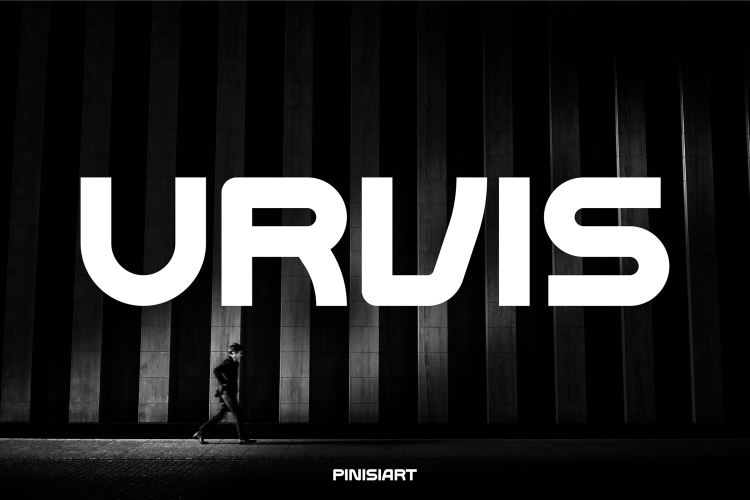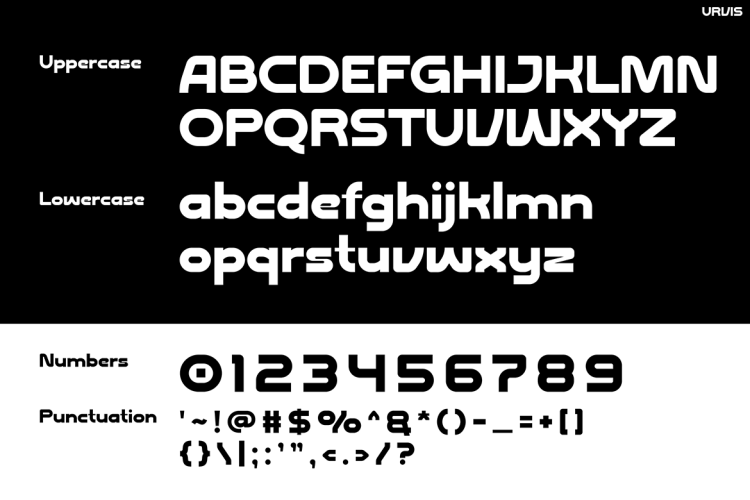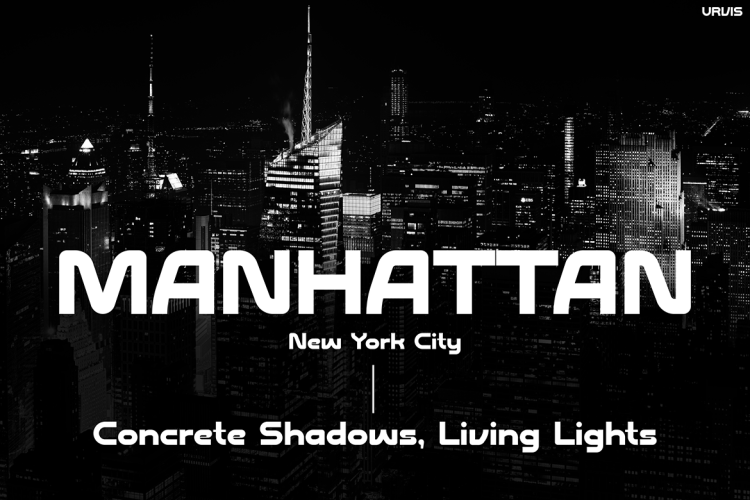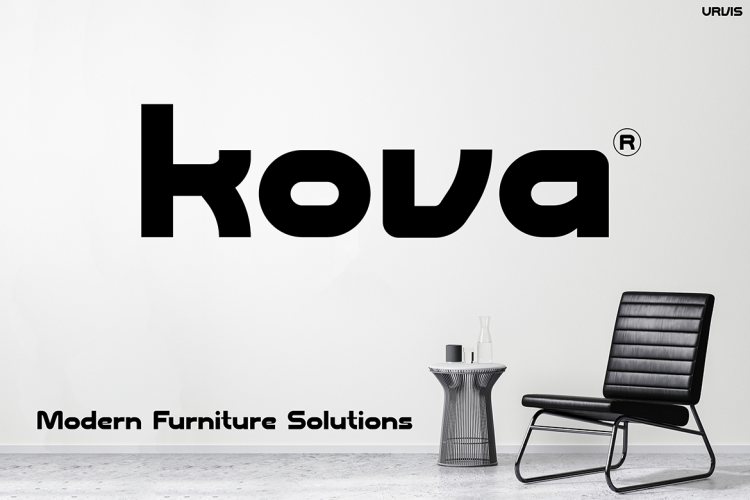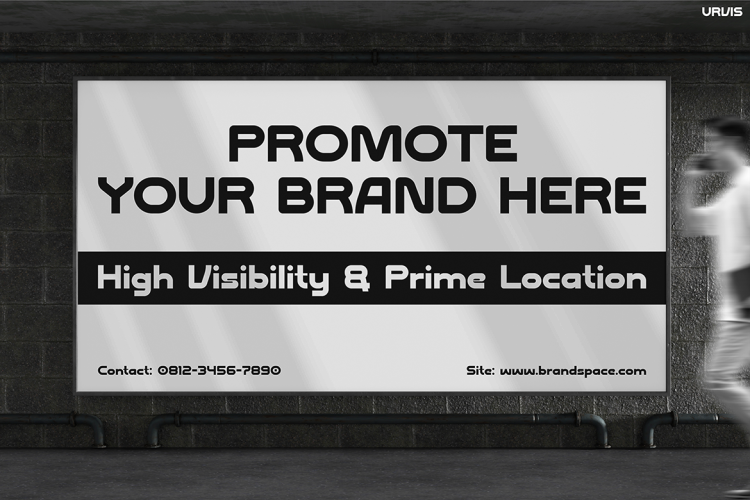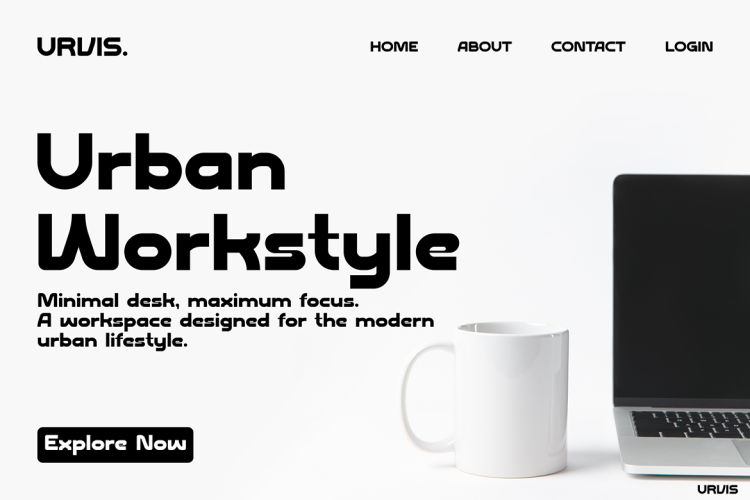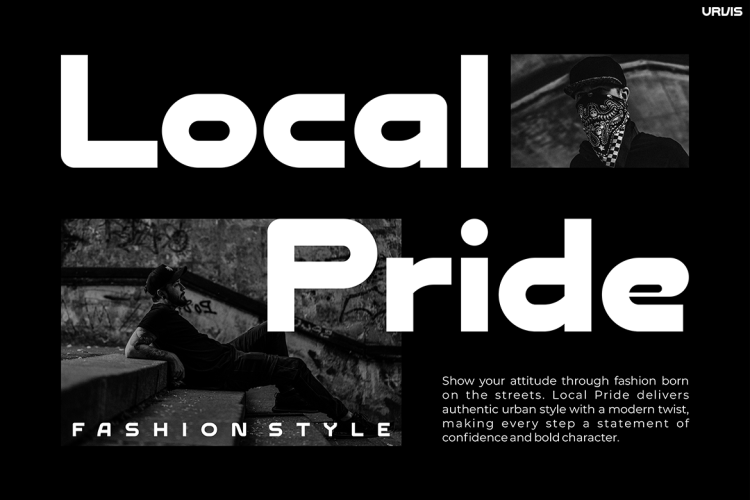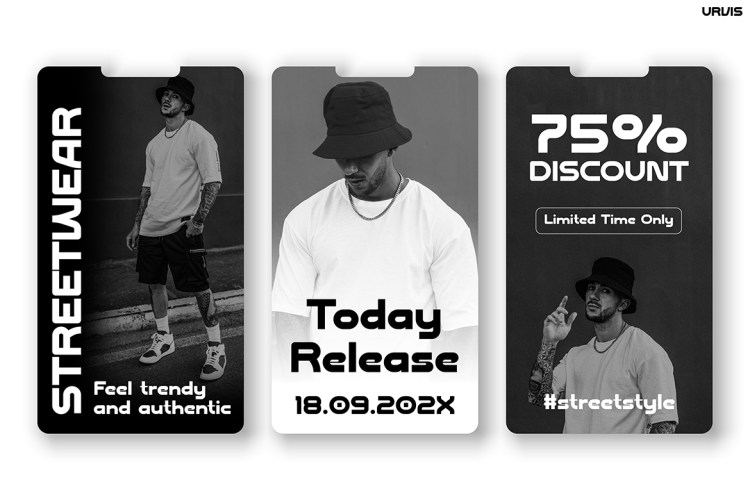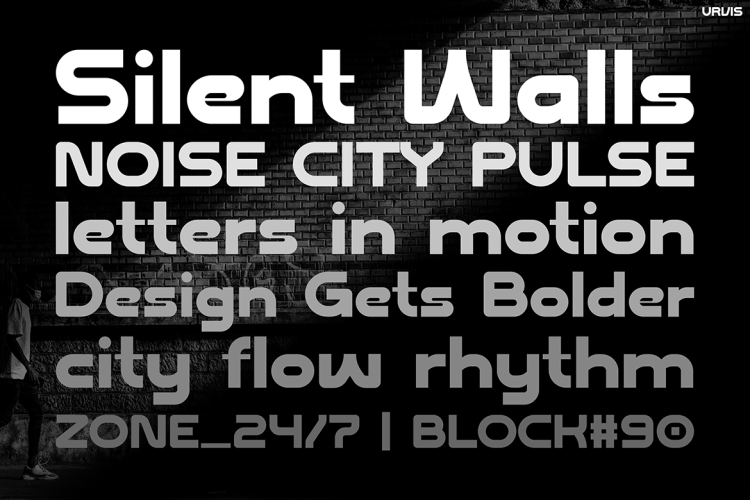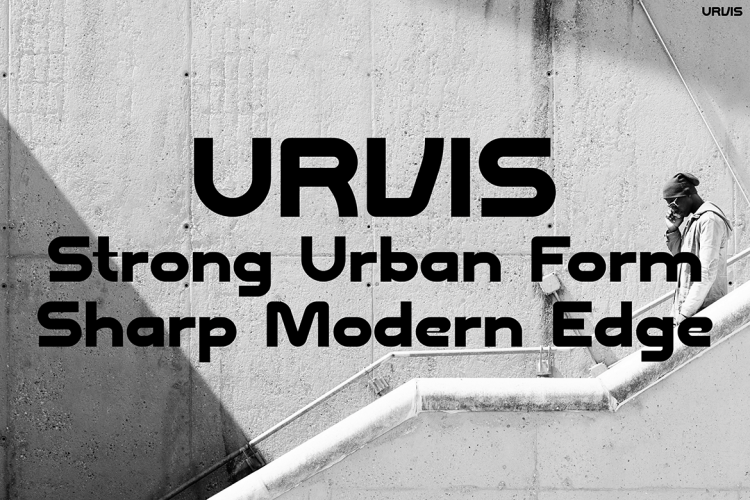
Instagram Font URVIS โ Bold Urban Style for Modern Branding
Instagram Font URVIS is a bold urban-inspired typeface with strong geometric forms and smooth curves. Its design combines sharp professionalism with creative flair. Moreover, the clean uppercase, sleek lowercase, and impactful numbers make it highly versatile for a wide range of design projects.
This font captures the pulse of modern city life. Concrete, lights, and movement are reflected in its structure. However, despite its bold character, URVIS remains clear and readable in both small and large sizes. Therefore, it works well for stylish branding, digital campaigns, and everyday marketing materials.
In addition, the fontโs sharp edges and smooth balance create an aesthetic that is both powerful and minimal. This unique blend allows designers to create strong statements without losing visual harmony. It brings a professional feel, yet still connects with creative energy.
Instagram Font URVIS is perfect for content creators and entrepreneurs who want designs that look modern and professional. Fashion brands can use it to highlight edgy streetwear collections. Tech startups, meanwhile, can apply it to present their innovation with a sharp and modern style. Interior and furniture businesses can also showcase their minimal concepts through URVIS.
Moreover, social media managers will find it ideal for eye-catching posters, story templates, and campaign headlines. Digital marketers, on the other hand, can rely on URVIS to create bold ads that stand out in crowded feeds. It also works well in lifestyle campaigns, editorial layouts, and promotional designs that need strong and confident typography.
Designers, agencies, and business owners alike will appreciate its flexibility. Thus, URVIS helps them communicate messages with clarity, authority, and visual impact.